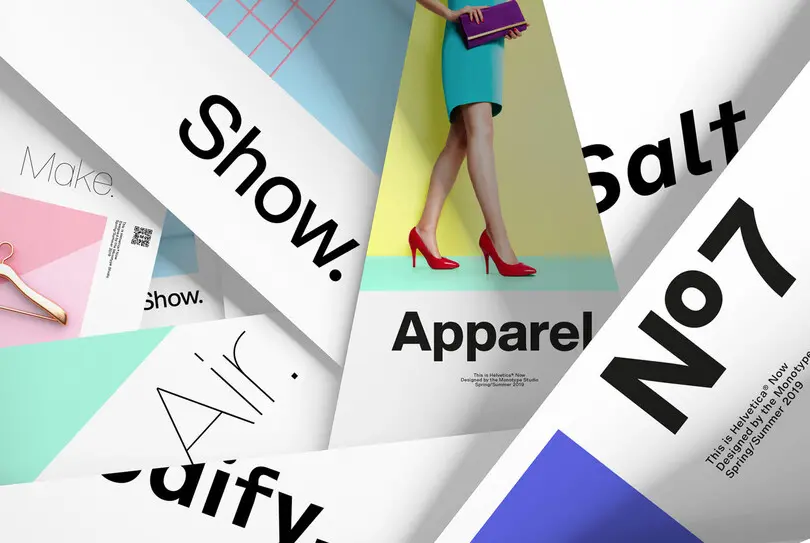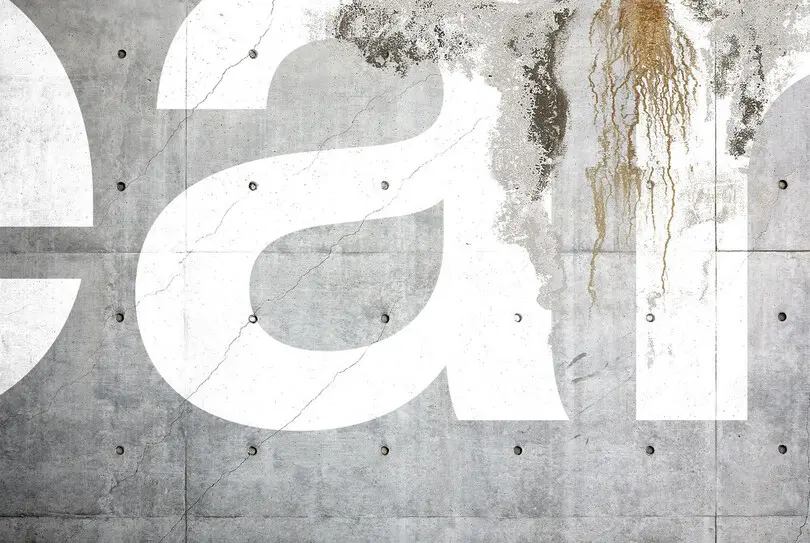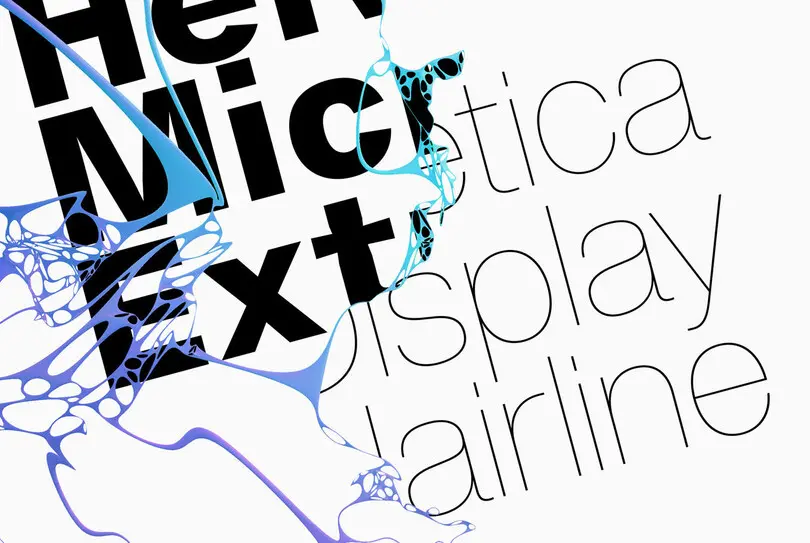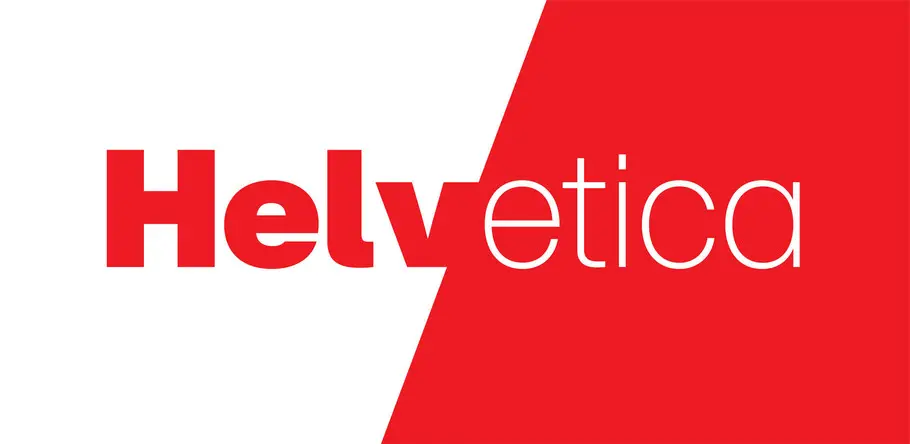
Right place, right time: The complicated legacy of Helvetica, one of the world’s most iconic typefaces.
It’s everywhere. And it isn’t going anywhere soon.
In the 60-plus years since Max Miedinger, Eduard Hoffmann, and the Haas Type Foundry unleashed Helvetica upon the world, the typeface has delighted, dismayed, captivated, and confounded the design community.
The truth is, there is no “wrong” way to feel about Helvetica. You can love it or hate it, use it for nearly anything or refuse to use it at all. It invites scrutiny and evokes passionate emotional responses, but wears all of its labels with ease. It is a kind of koan: nothing and everything at once.
But however you feel about Helvetica, no one can deny its place in our society. From the nose of the space shuttle to the dripping depths of the New York City subway system, Helvetica is an intractable presence in our lives.
“It’s vanilla,” says Monotype Type Director Charles Nix. “It’s paper. It’s a fundamental container for thought.”
It’s everywhere. And it isn’t going anywhere soon.
The power of plainness
To the average person, there’s nothing particularly distinctive about Helvetica. “Its inherent qualities are straightforward,” says Monotype Senior Type Designer Terrance Weinzierl. “It’s a neo-grotesque with even proportions, low stroke contrast, and a simple and logical finishing of details.”
That’s Helvetica in a nutshell: Simple, clean, unassuming. These qualities grant Helvetica a wide range of reasonable uses and bring order to nearly any design—from a corporate logo to the sign at a local shop to your tax forms.
Helvetica
Helvetica has long been popular with corporations seeking a clean, simple, direct look.
“People don’t even think of it as anything except type,” says Nix. “It becomes the equivalent of type. It’s a typeface that everyone knows. Even without knowing it, if you think of typography ‘without feet,’ you think of Helvetica.
“This blankness is its power,” he adds. “Major corporations see Helvetica as the ultimate expression of typography; the transparent container for the message of their brand. It does its job so incredibly well that it equates them with itself. It isn’t a serif, so it’s not committed to some old style, and it isn’t new. It’s simply the thing.”
Fans of the typeface love it for this exact reason. It just is. When used well, Helvetica seems natural, firmly rooted in space like it has always been there. It organizes the world around it. While the layperson may not see much when looking at Helvetica, designers (even designers who don’t personally love Helvetica) will praise the skill, craft, and consideration that went into designing with such precision.
It isn’t a serif, so it's not committed to some old style, and it isn’t new. It’s simply the thing,
“Helvetica’s neutrality is widely appreciated and its studious perfection is admired by both type and graphic designers and even non-designers,” says Monotype Senior Designer Jim Ford, no fan of the typeface himself. “I hate to admit how smart Helvetica is as a design. It definitely set a standard in quality for future type.”
“You recognize something inherent in it that’s very difficult to achieve,” adds Nix. “So you have to respect it.”
A victim of its own success
Helvetica rose to prominence in the 60s and 70s, and quickly became the go-to choice for expressing modern, cosmopolitan sophistication across a huge swath of corporate America. This popularity, coupled with what Nix calls “carefully crafted letterforms that are aggressively legible,” led to its adoption in major new systems like photocomposition and, most notably, the first release of the Macintosh OS.
“It was in the right place at the right time because it was very popular at the height of photocomposition technology,” says Monotype Creative Type Director Steve Matteson. “This made it a popular choice for companies trying to convince people to buy digital composition machines. Then, because it was available in a digital format, it was an easy transfer to the desktop publishing formats.”
One might say this was the tipping point for Helvetica. The typeface went from being popular to being everywhere, and available not just to designers and creatives but to everyday people clicking away on their new home computers. Helvetica became something of a commodity within the design world—its uniqueness washed out by its ubiquity.
The typeface went from being popular to being everywhere, and available not just to designers and creatives but to everyday people clicking away on their new home computers.
“After the 80s and 90s, Helvetica became synonymous with the term ‘default;’ the font you get when you don’t choose a font,” says Ford. “Helvetica was shunned when I went to college. If you used it, professors got the impression that you didn’t think seriously about the typography.”
In a sense, Helvetica was a victim of its own success. It was designed to work virtually anywhere, and that’s exactly how people used it. “One can argue that ubiquity and overuse are a signal of quality,” notes Monotype Senior Type Designer Alex Roth. “Helvetica is very easy to handle, works almost everywhere and is widely available. It has defended its position at the top of font menus for decades. Why would you blame it for that?”
So, however one feels about Helvetica, it seems determined to stick around a while longer. Weber believes it has earned its status as a “standard” of graphic design and hopes Helvetica Now preserves that standard for the future.
“What we’ve created in Helvetica Now is the potential to see Helvetica completely differently,” says Nix. “To make it relevant in a new century.”